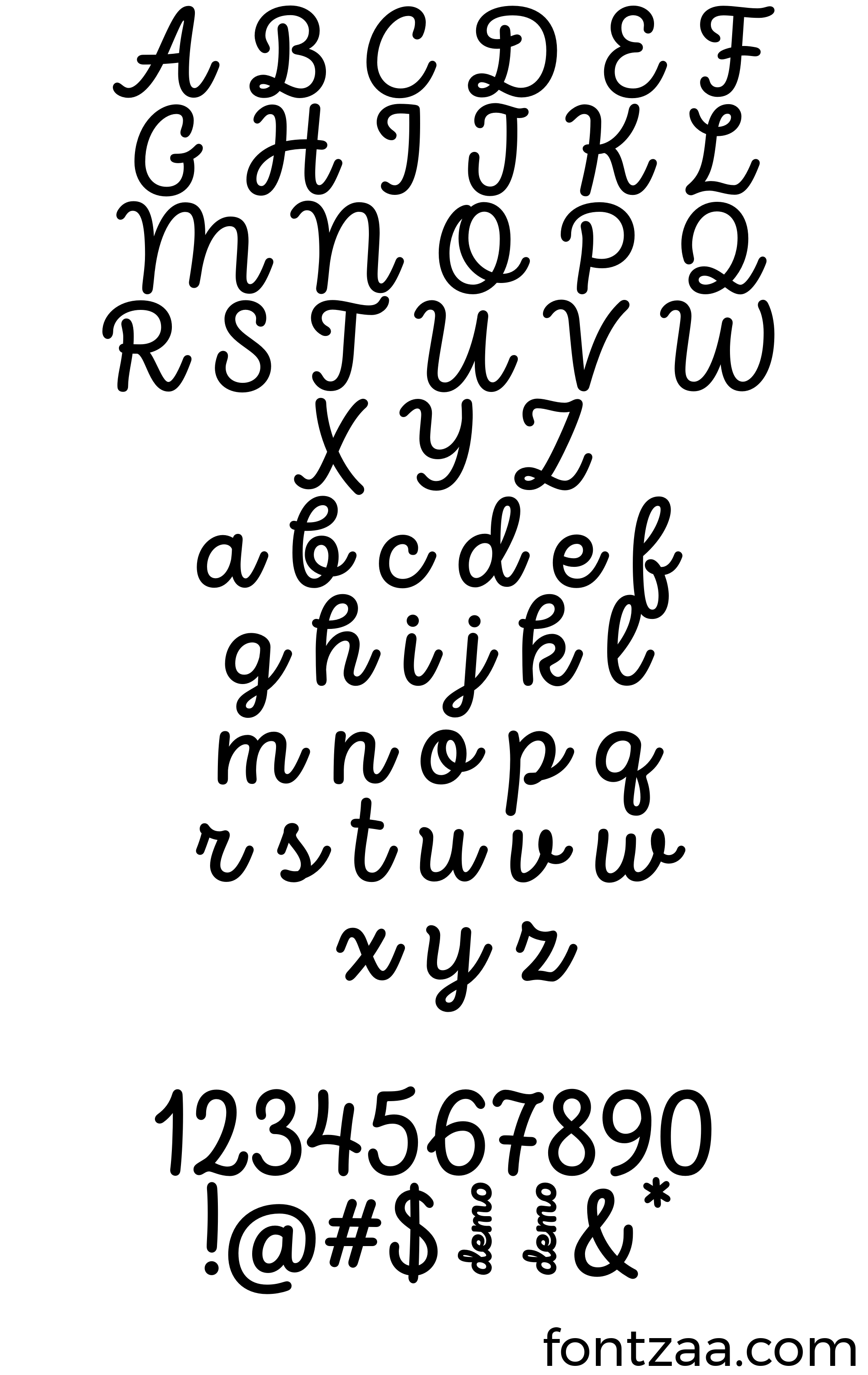
This Intro Script font is so stylish and modern. Fontfabric has developed as a leading type foundry that has given to the world most of its best contemporary fonts, and this Intro Script is no exception. It truly serves as a synthesis of sophistication with artistic flair, such features being provided by the elegant, fluid brush script style.
Handwritten appearance is one of the main features of Intro Script. The typeface’s letterforms are created with sweeping brush strokes and graceful curves, similar to those of handwritten script. Made to mimic the speed, spontaneity, and rhythm of a handwritten script, Intro Script conveys a personal and very expressive quality, ideal for projects that demand unique elegance and creativity.
It comprises uppercase and lowercase alphabets, and numbers; along with these, it has punctuations and a range of stylistic alternates and ligatures. This pool of additional characters offers designers the flexibility in giving text any of several looks, offering creative touches and forms—Alterations that will just make the Intro Script look better.
Intro Script has been designed in such a way that it can be used in many places, including designing wedding invitations, greeting cards, branding, packaging, and editorial designs. Of course, calligraphy-based letters with such flowing, dynamic forms work really well in headings, titles, and decorative elements that should draw specific attention, at the same time communicating a particular tone.
Although being a decorative typeface, Intro Script remains readable; its beautiful letterforms and well-considered spacing keep the balance for good legibility on a functional level but deliver the distinct look that we all crave.